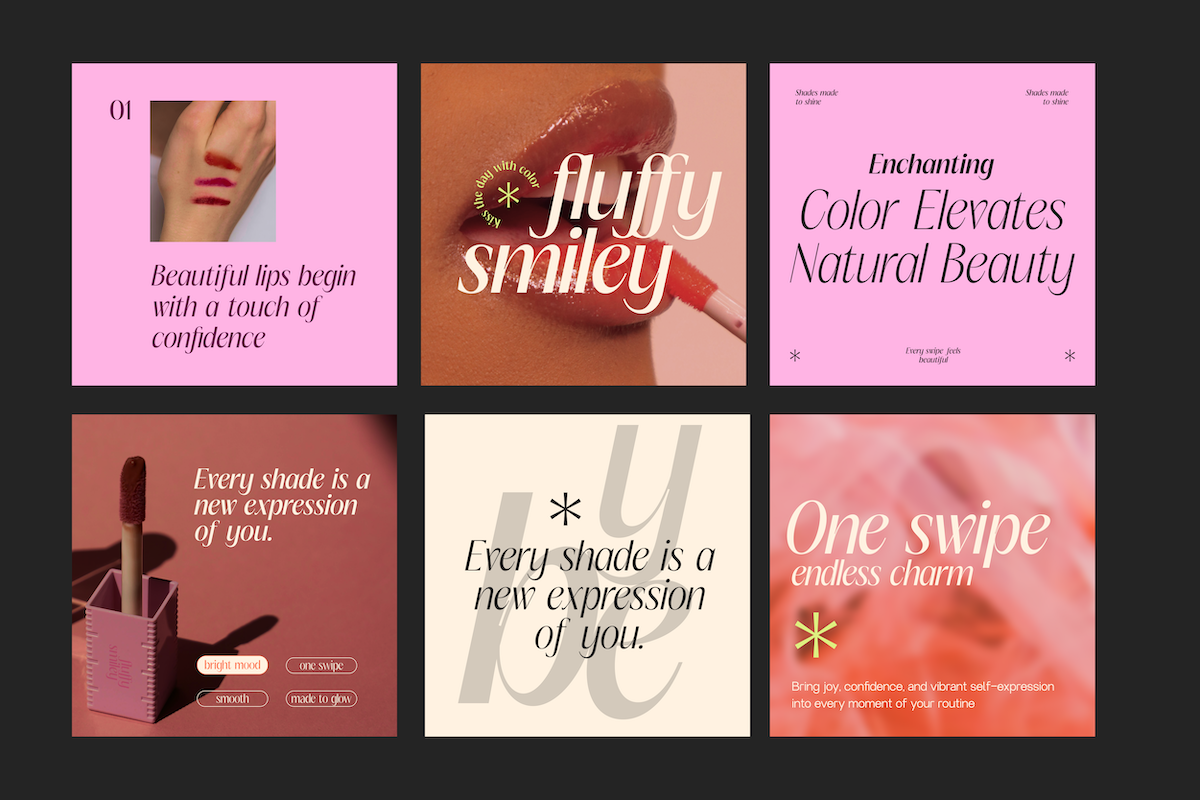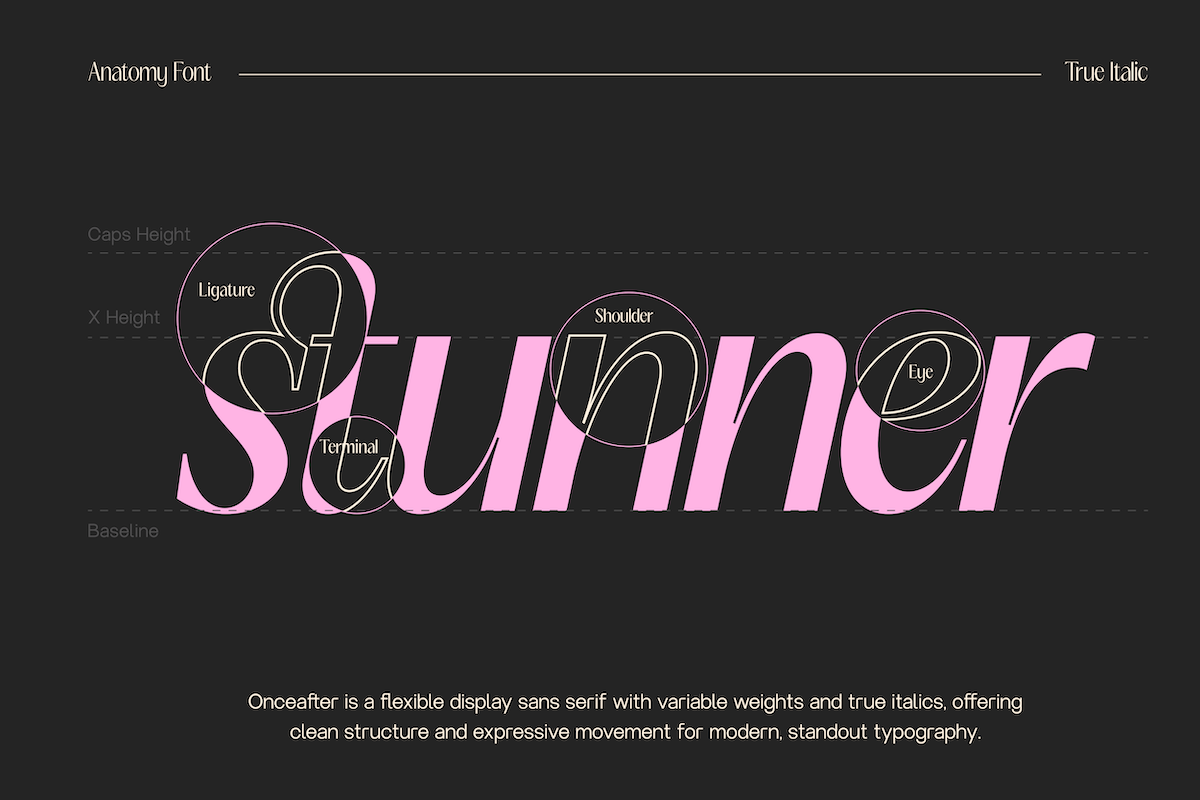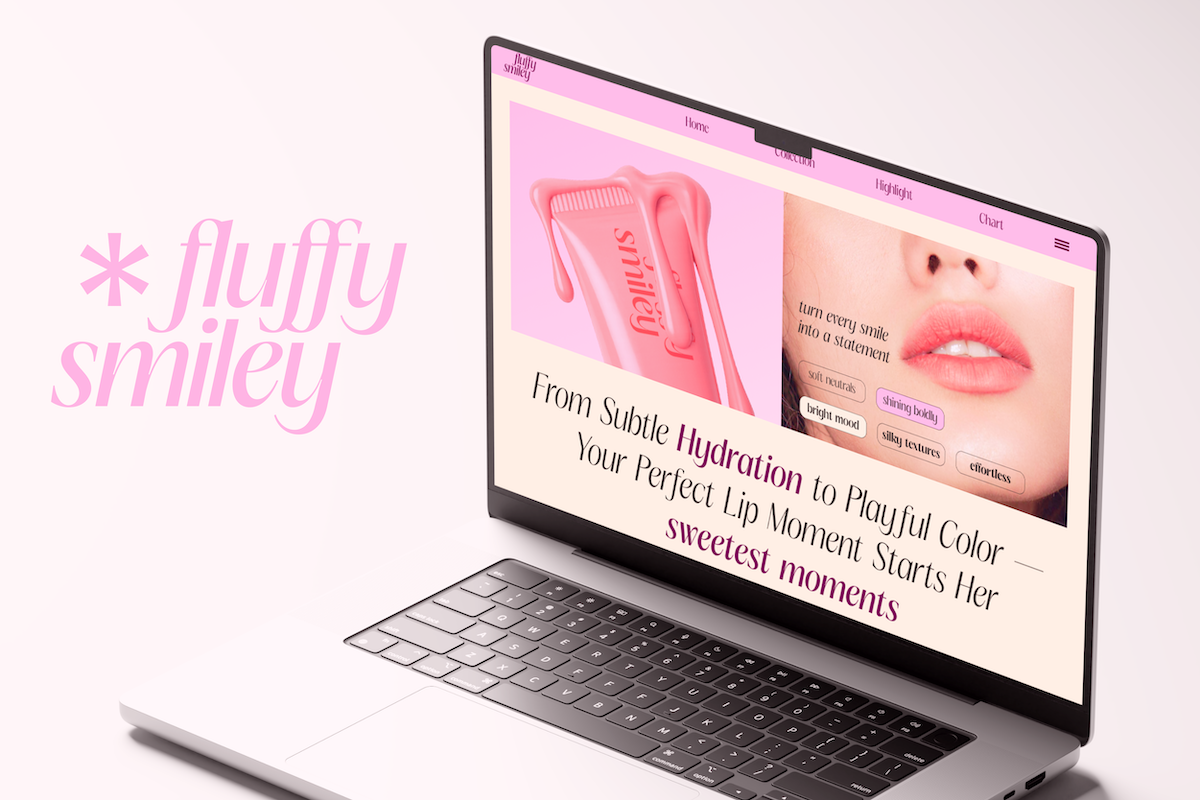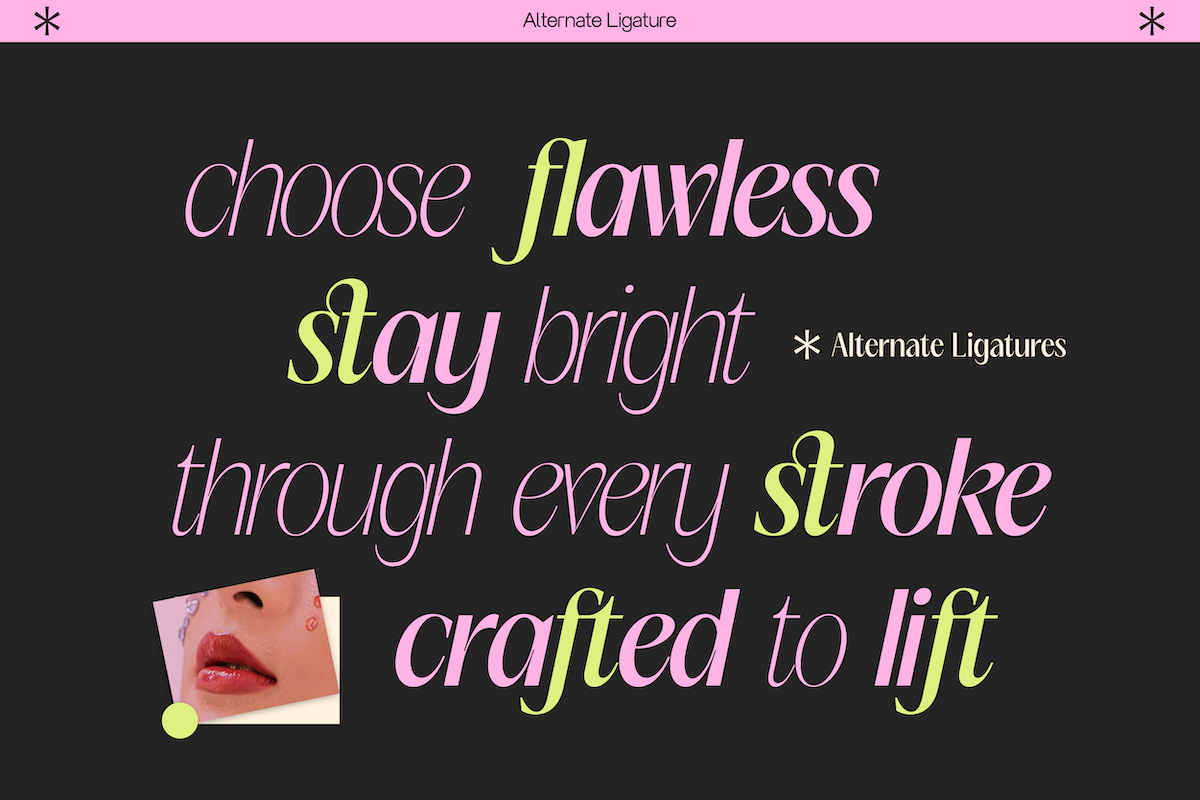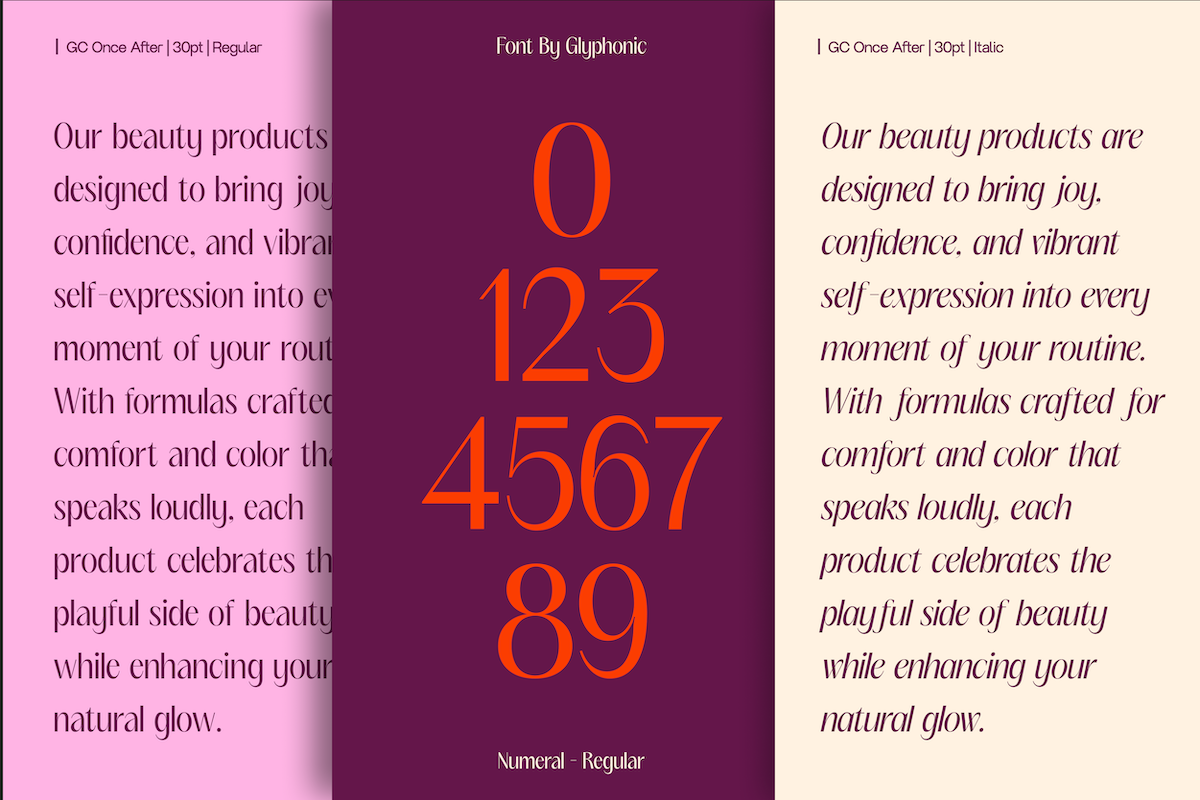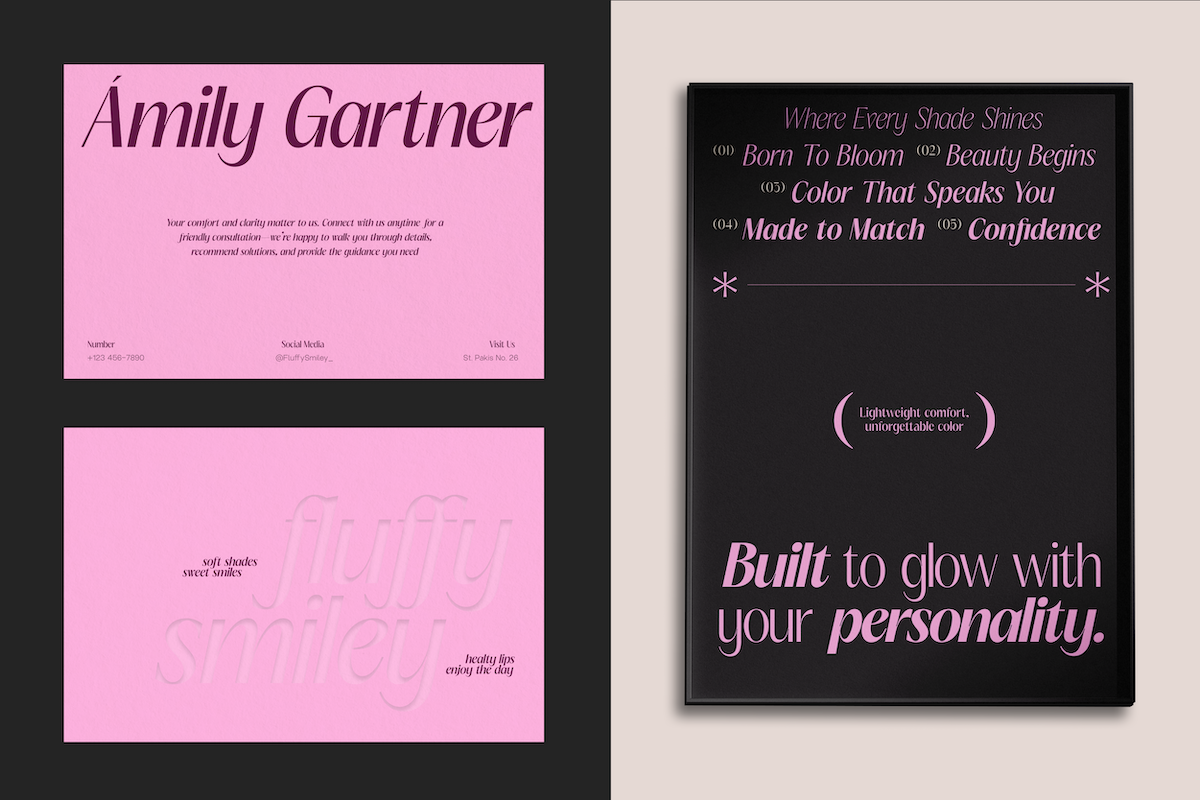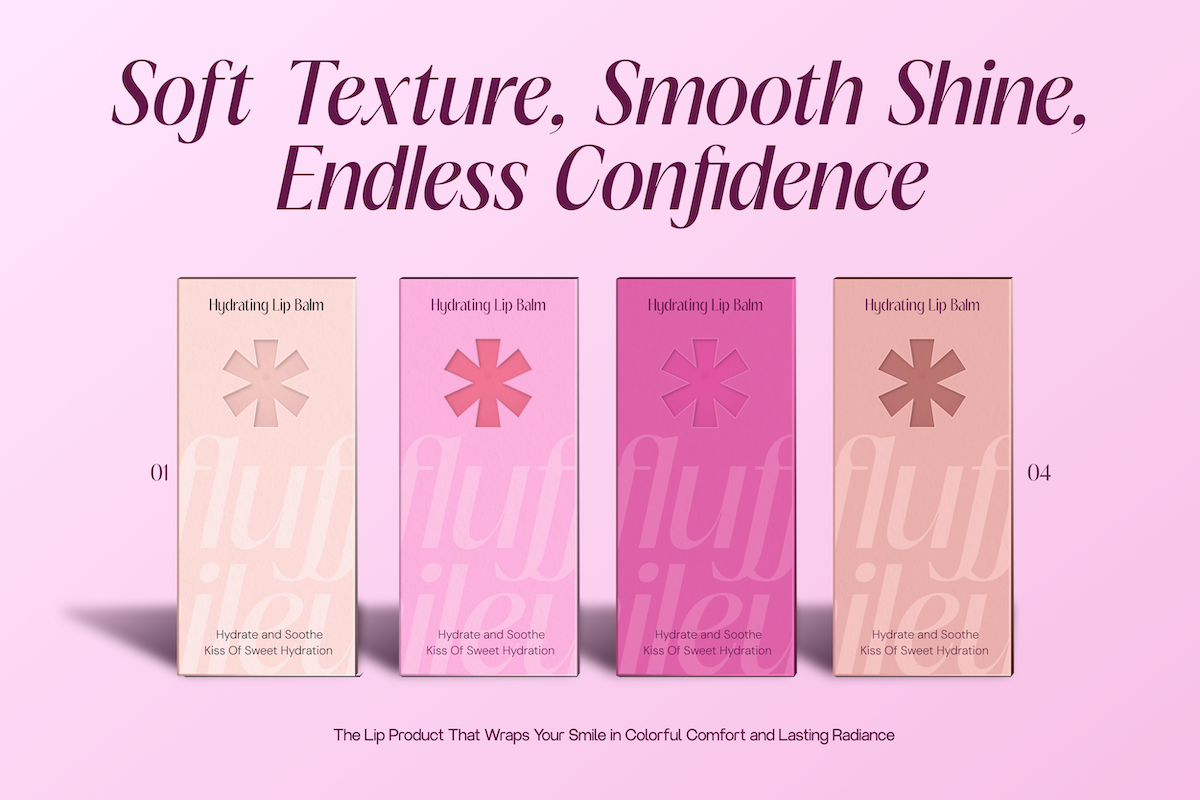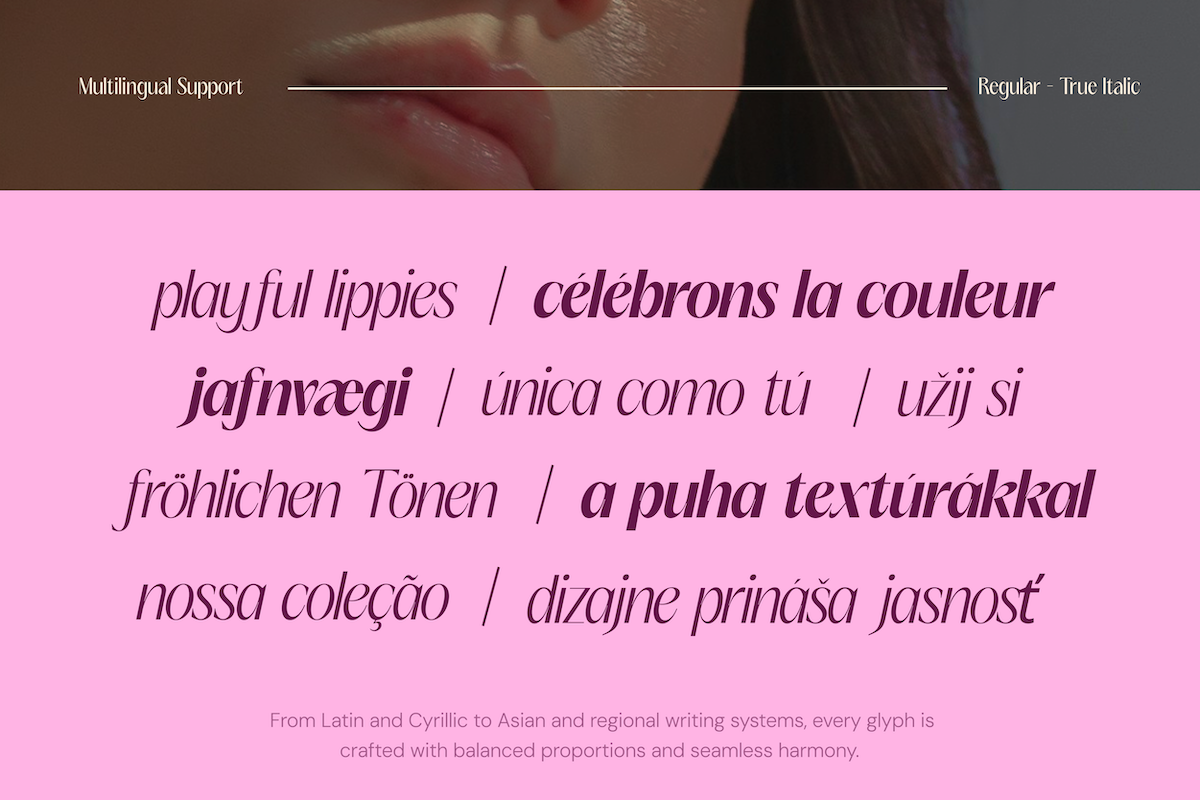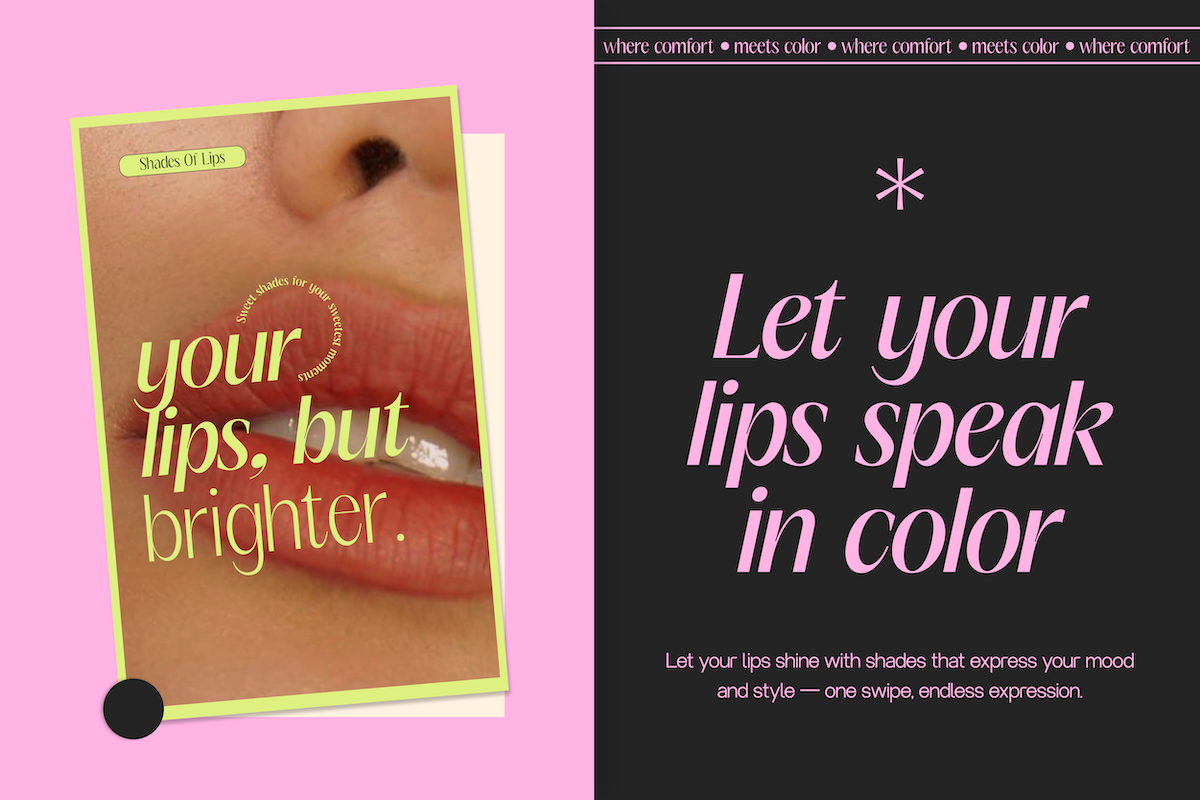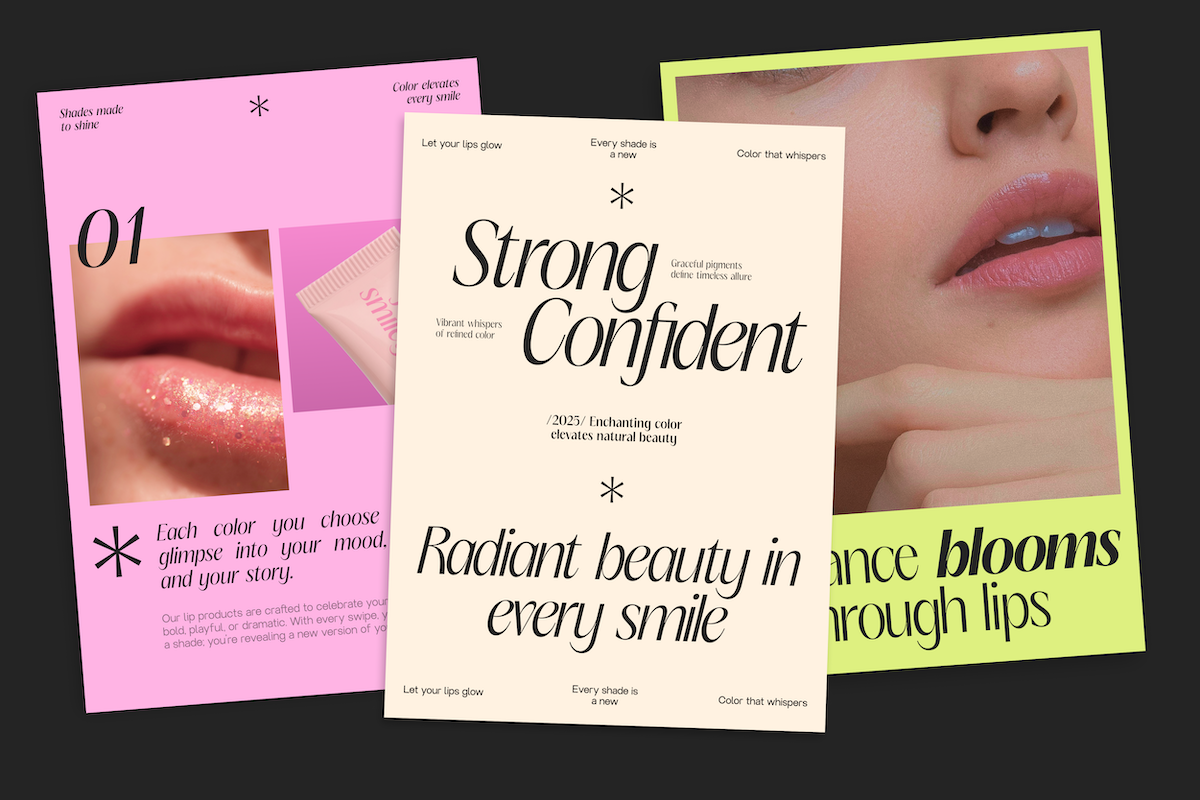
GC Once After - Display Sans
GC Once After – Display Sans is a striking display typeface crafted for bold presence, modern aesthetics, and visual impact. With clean shapes and a refined geometric style, it delivers a sharp, distinctive voice ideal for eye-catching headlines, branding statements, and contemporary design work.
Designed to stand out with simplicity and confidence, GC Once After enhances posters, logos, packaging, editorial layouts, and digital interfaces with a bold, memorable character. Precise detailing and balanced proportions ensure that every glyph appears crisp, stylish, and powerful across various applications.
Features: • Uppercase & Lowercase • Numbers & Punctuation • Modern Display Construction • Multilingual Support (170+ Languages) • Elegant Display Sans Construction
Bring bold clarity, modern attitude, and a striking visual identity to your design with GC Once After – Display Sans.